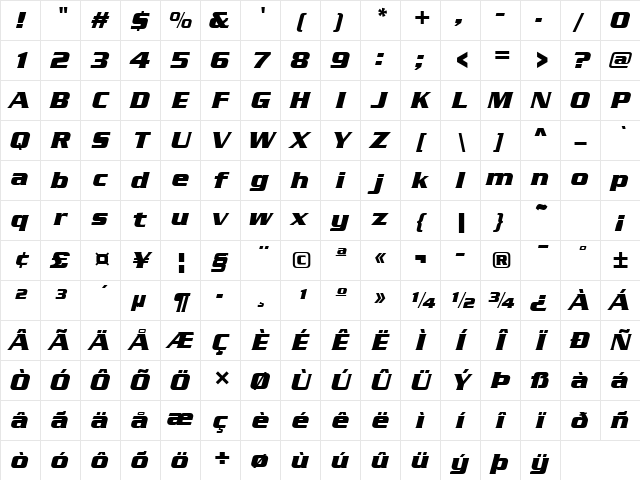
SerpentineDBol Italic
Design Context for SerpentineDBol
SerpentineDBol is a composed and adaptable typeface that performs quietly and consistently across a wide range of design contexts. The slanted form adds forward momentum and visual energy.
Pro Tip: Use SerpentineDBol for emphasis, pull quotes, and subheadings where its slanted energy can add rhythm to the layout.